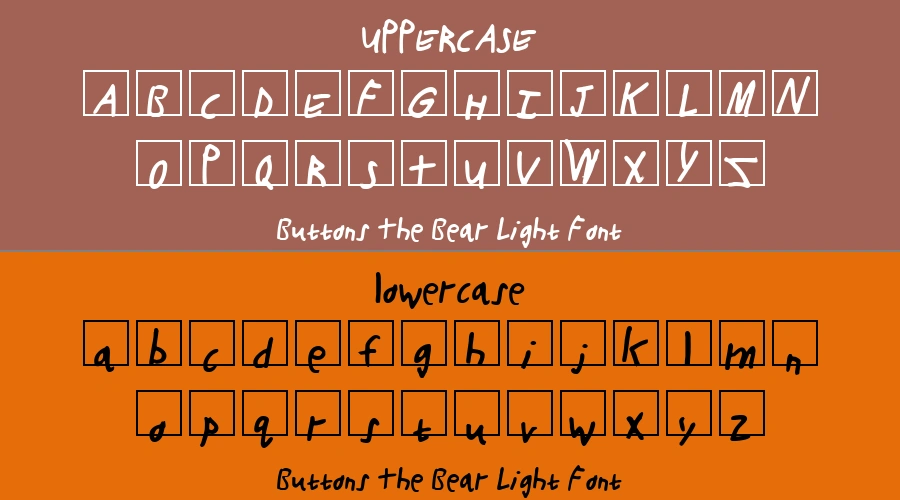
About Buttons The Bear Light Font
Buttons The Bear Light Font stands out for its distinctive combination of organic curves and text flow. Ideal for architectural plans, it provides the longevity and industrial strength that professional projects demand. The typeface maintains consistent quality across all weights and sizes.
Key features include refined precise alignment and practical mid-word alternates, enhancing typographic expression. In compliance materials applications, Buttons The Bear Light Font demonstrates exceptional print fidelity. The joint detail and historical reference contribute to its distinctive character and professional appeal.